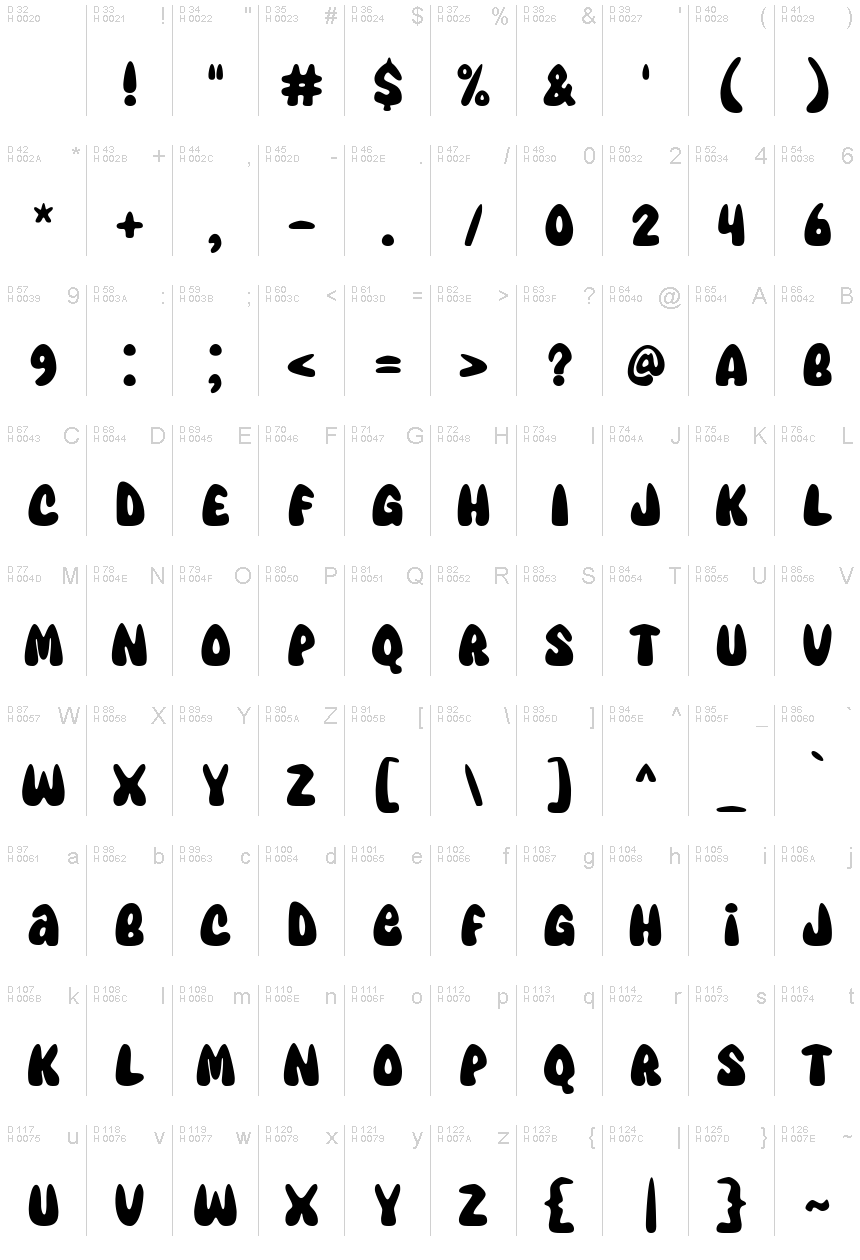
Super Avocado
Super Avocado brings to life the whimsy and fun of a cartoon style with its bold and exuberant design. Created by fsuarez913, this display font captures the essence of playfulness, making it perfect for projects that aim to be eye-catching and full of personality. Its rounded forms and robust strokes evoke a sense of joy and creativity, ideal for injecting a lighthearted touch into any visual narrative.
This font shines in contexts where engagement and friendliness are key. From children's book titles to playful branding or lively event invitations, Super Avocado is sure to make a statement that is both memorable and delightful. With its charming character, it's poised to add that extra zest to your design recipe-guaranteeing that your message not only stands out but also brings a smile to everyone who sees it.
Super Avocado: A Font Fiesta of Fun and Fancy!